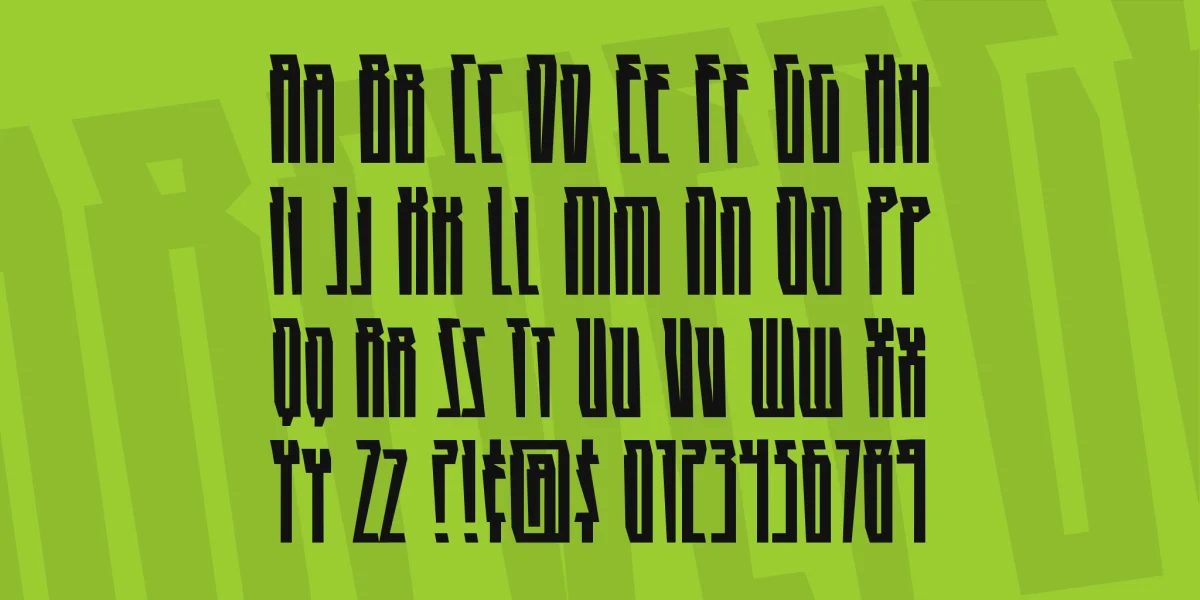
At first I made this font tall. Then I made it really tall. Then I made abso-freakin'-ridiculously tall and then I had to stop because I was getting altitude sickness. HIGHRISE is a great hero/sci-fi title font with clean lines and odd angles. Comes with Regular and Italic.